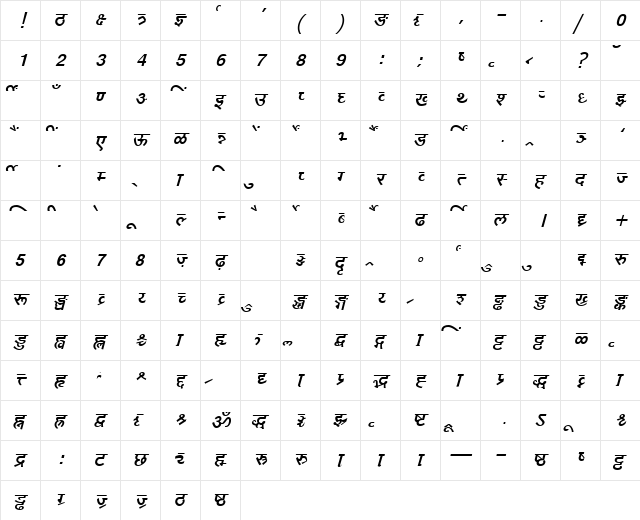
AkrutiDevBhaskar BoldItalic
Design Context for AkrutiDevBhaskar Typeface
AkrutiDevBhaskar takes a measured approach to typography — its balanced proportions and neutral character make it a reliable workhorse for both digital and print work. The slanted form adds forward momentum and visual energy. The heavy weight commands attention and anchors typographic hierarchies.
Pro Tip: Use AkrutiDevBhaskar for emphasis, pull quotes, and subheadings where its slanted energy can add rhythm to the layout.